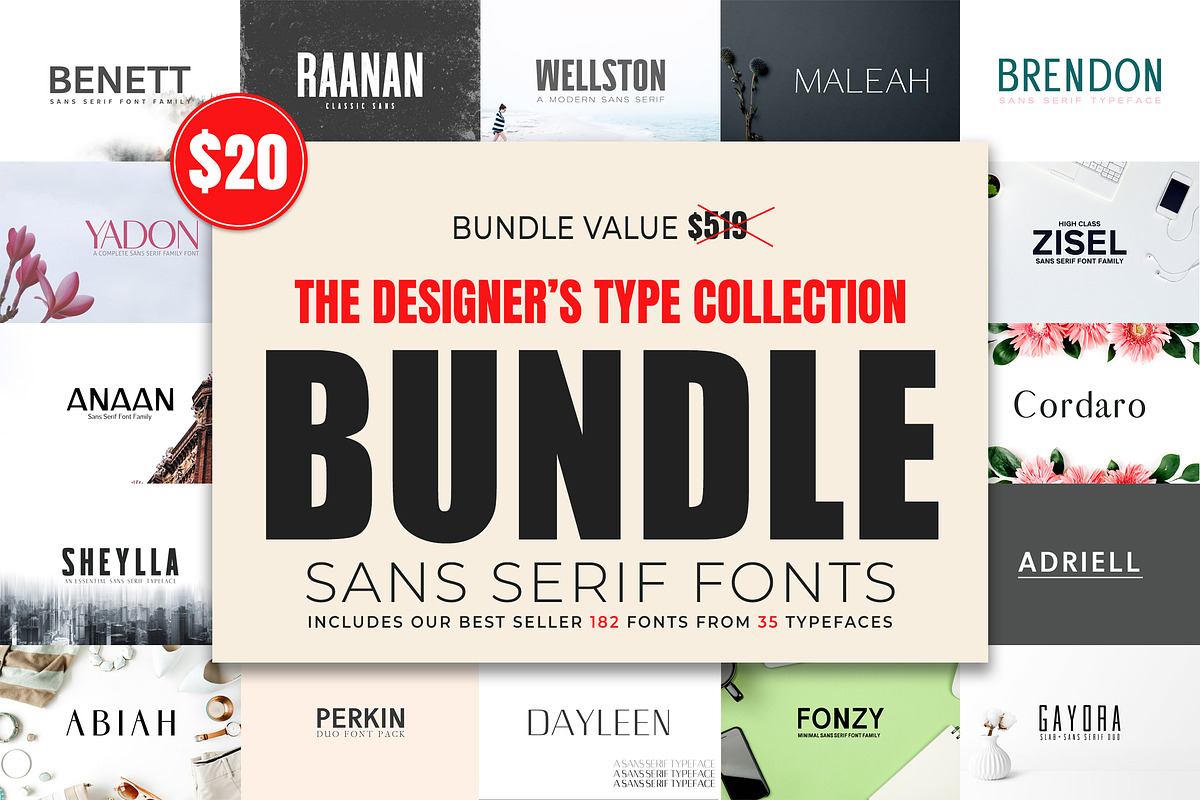
Designer’s Type – Sans Serif Bundle! Free Download is a premium collection of clean, modern, and highly versatile sans serif fonts curated specifically for creative professionals. With multiple styles and weights included, this bundle is perfect for branding, UI/UX design, editorial layouts, social media graphics, posters, and everything in between.
Each font in the bundle is crafted for readability and minimalist appeal, making them ideal for both headlines and body text. Whether you're building a startup identity or refreshing a portfolio, this sans serif pack ensures your typography looks sleek, balanced, and timeless.
Upgrade your design game with the professional precision and clean lines of Designer’s Type.